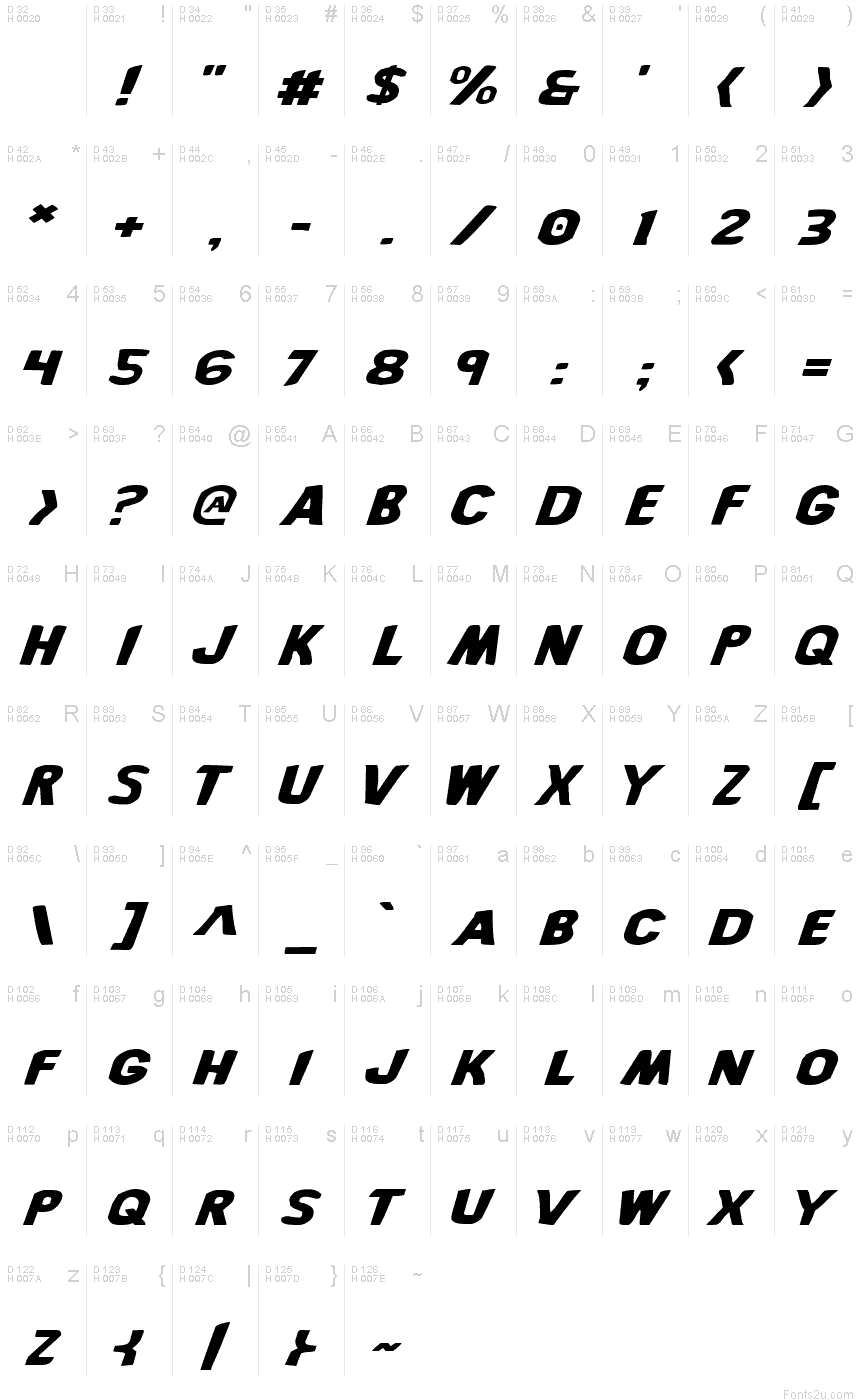
Bronic Expanded Italic
Bronic Expanded Italic font by Daniel Zadorozny of Iconian Fonts is a free comic display typeface with the weight and speed of a punchy action logo. Wide, chunky letters lean hard into their italic slant, creating a sense of forward motion like a sound effect bursting across a panel. The shapes are smooth and slightly rounded, giving the bold black forms a friendly, cartoon energy rather than a harsh, mechanical feel.
This free font shines on comic covers, superhero logos, game titles, kids’ branding, sports graphics, and bold YouTube thumbnails where you need loud, confident text that still feels fun. Using Bronic Expanded Italic big and tight makes the most of its heavy rhythm; pair it with a simple, neutral sans serif for body copy so the Bronic family can stay in the spotlight.